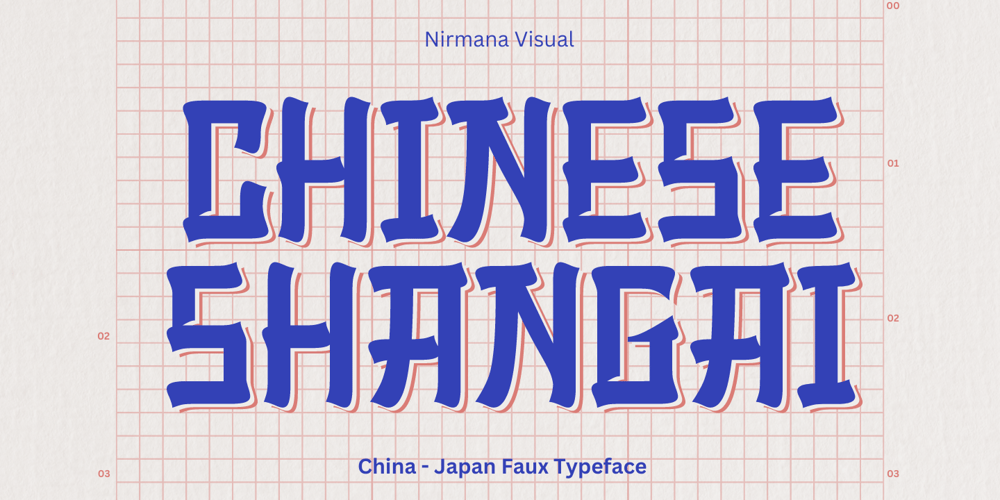
Chinese Shangai
Chinese Shangai font
Chinese Shangai Font Family was designed by Sigit Dwipa and published by Nirmana Visual. Chinese Shangai contains 1 styles and family package options. Chinese Shangai Inspired by China & Japan Calligraphy.Each characters carefully crafted with delight full technique and visual touch to make your design works have oriental and stylish looks.Chinese Sahnagi Perfectly fit for your Chinese / Japanese projects, Logo, Branding, Restaurant, Asia Town decoration, anytime you need an instant vibe of it.